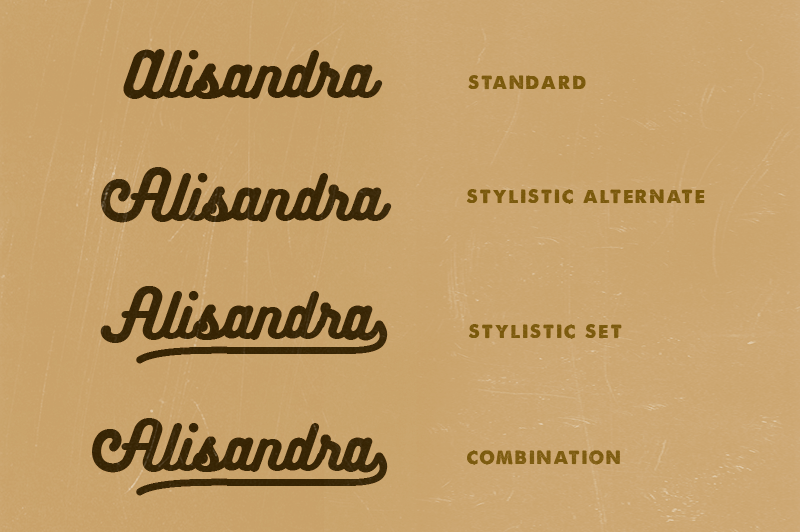
Font name: | Bukhari Script |
Author: | Mikrojihad Inc. |
Bold Monoline Cursive font. Equipped with OpenType Features. Altenates Font is available on separate font files. In the Bukhari Alternates Font, for the Uppercase that haves 2 alternates such as A, B, D, H, K, M, N, R, and P, you can find them on numbers character (0-9). Bukhari Script is FREE for commercial use. But any donations also would be very appreciated. Enjoy! Mikrojihad, Inc. |